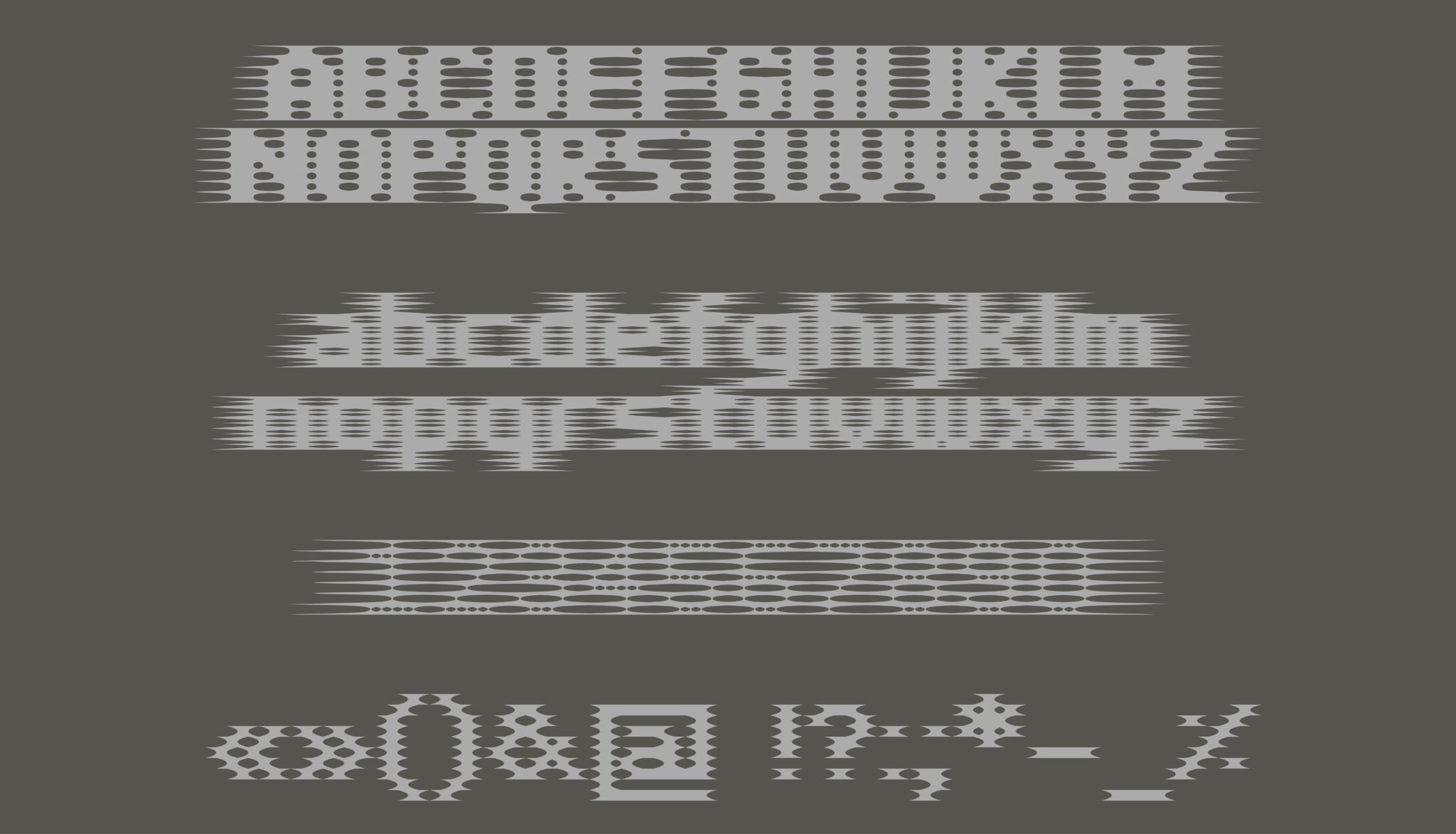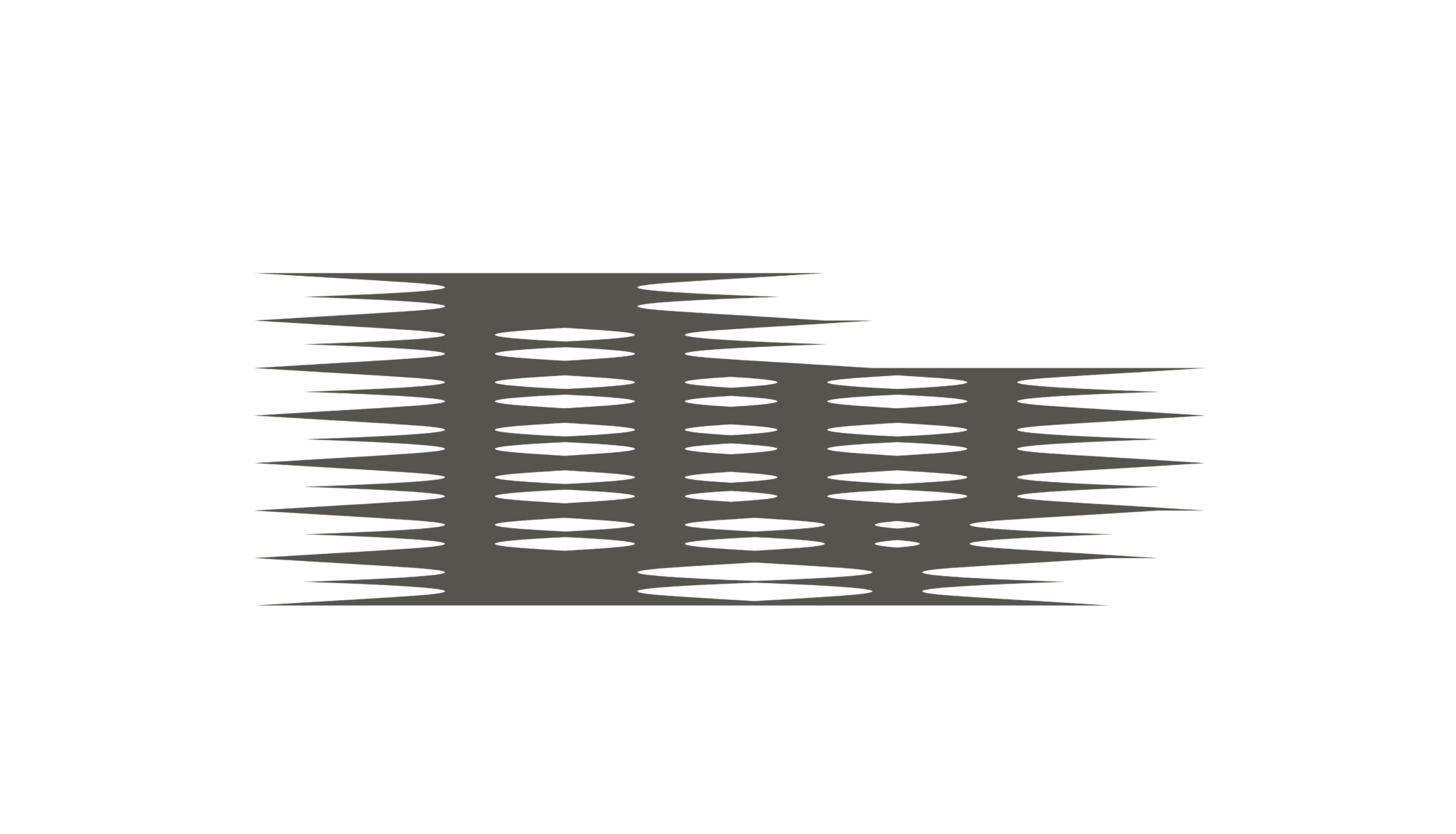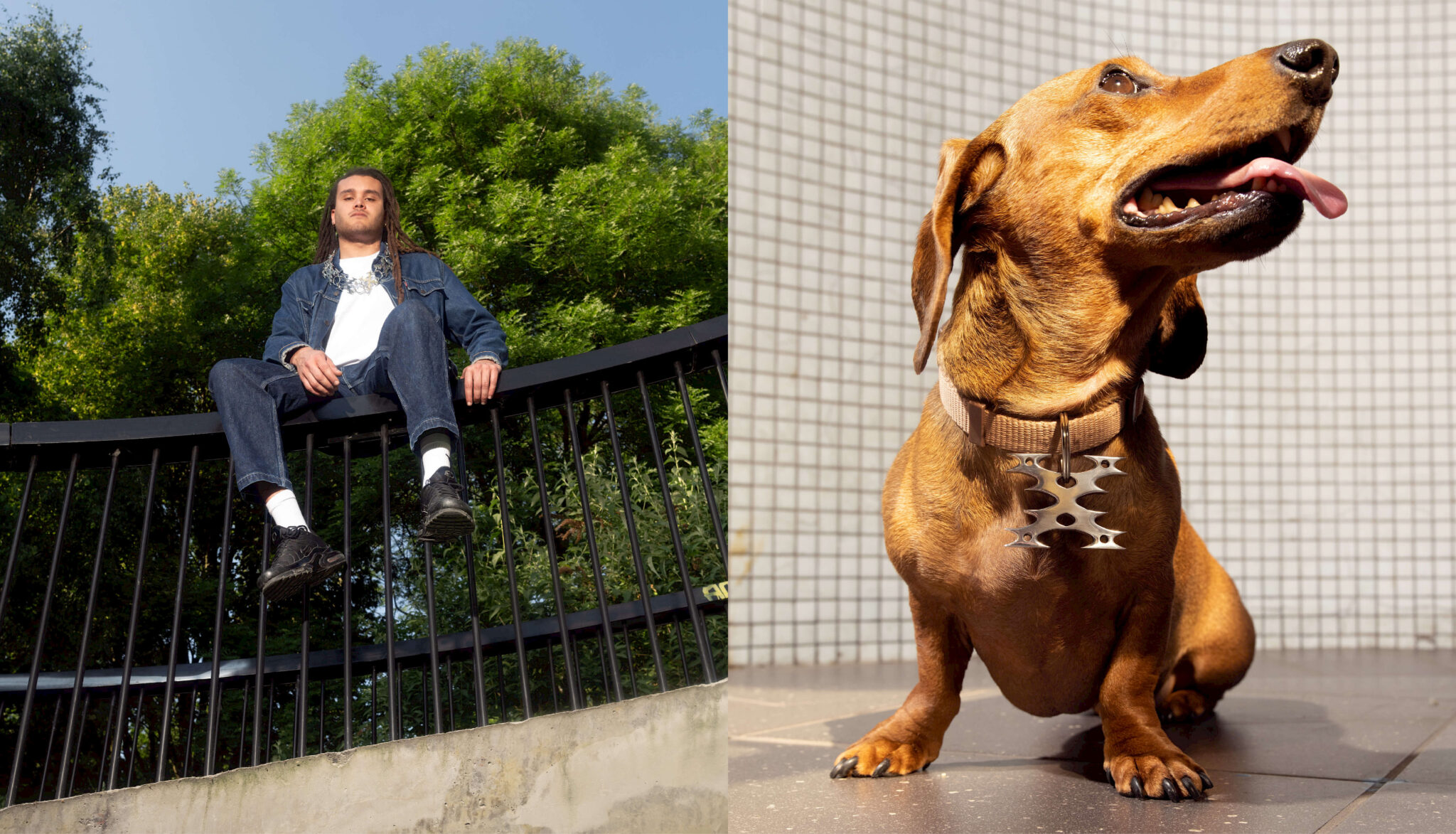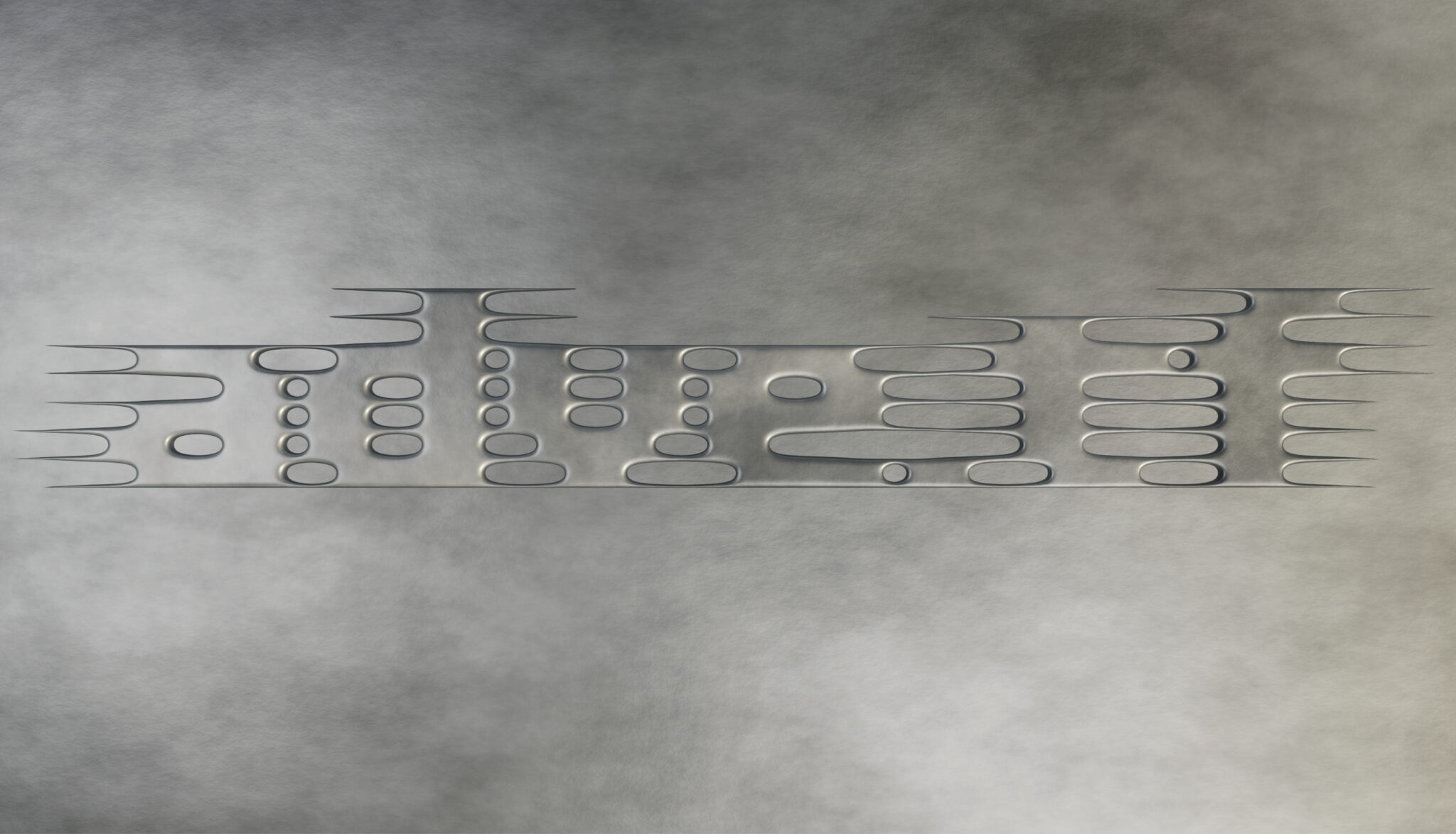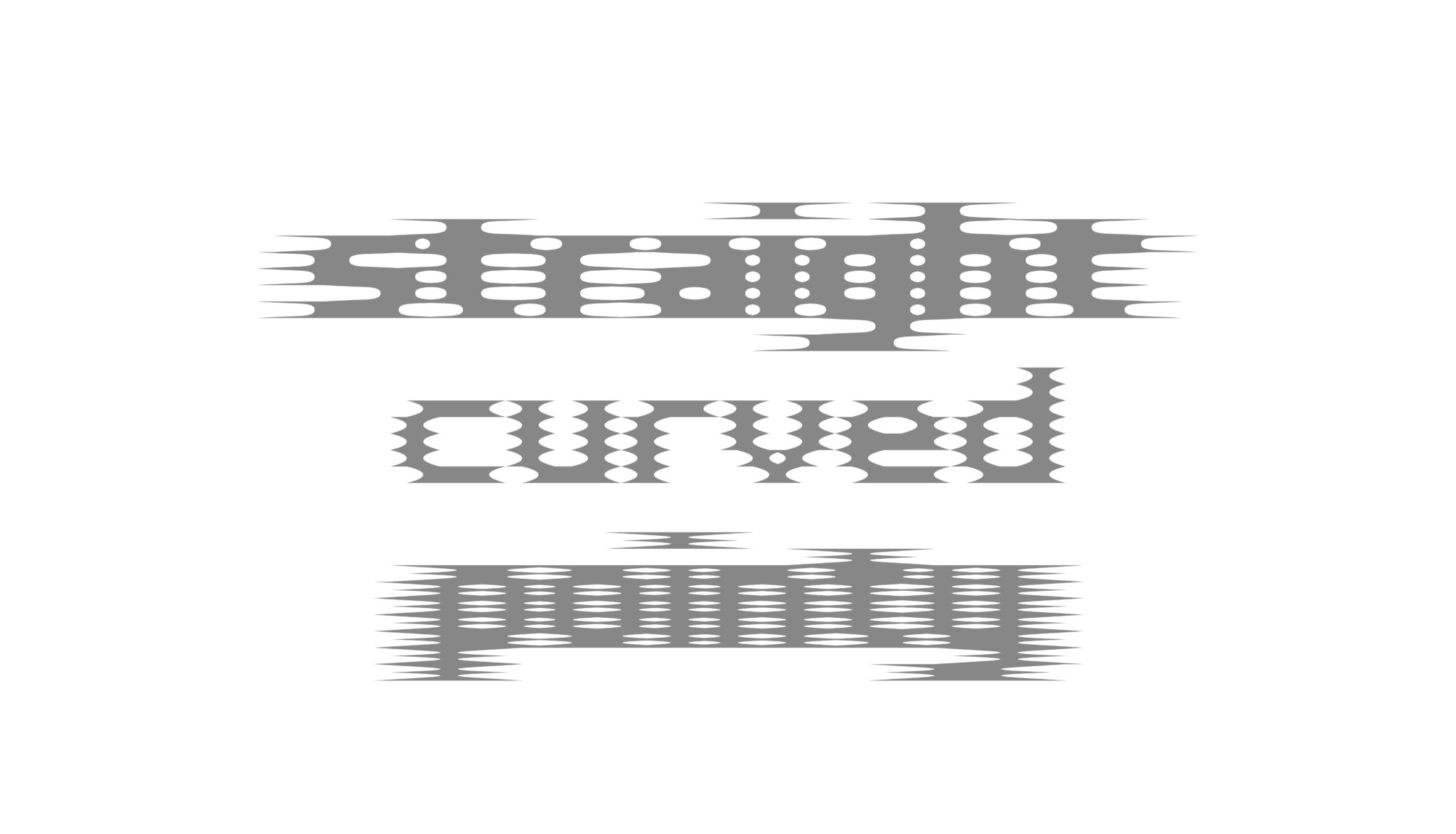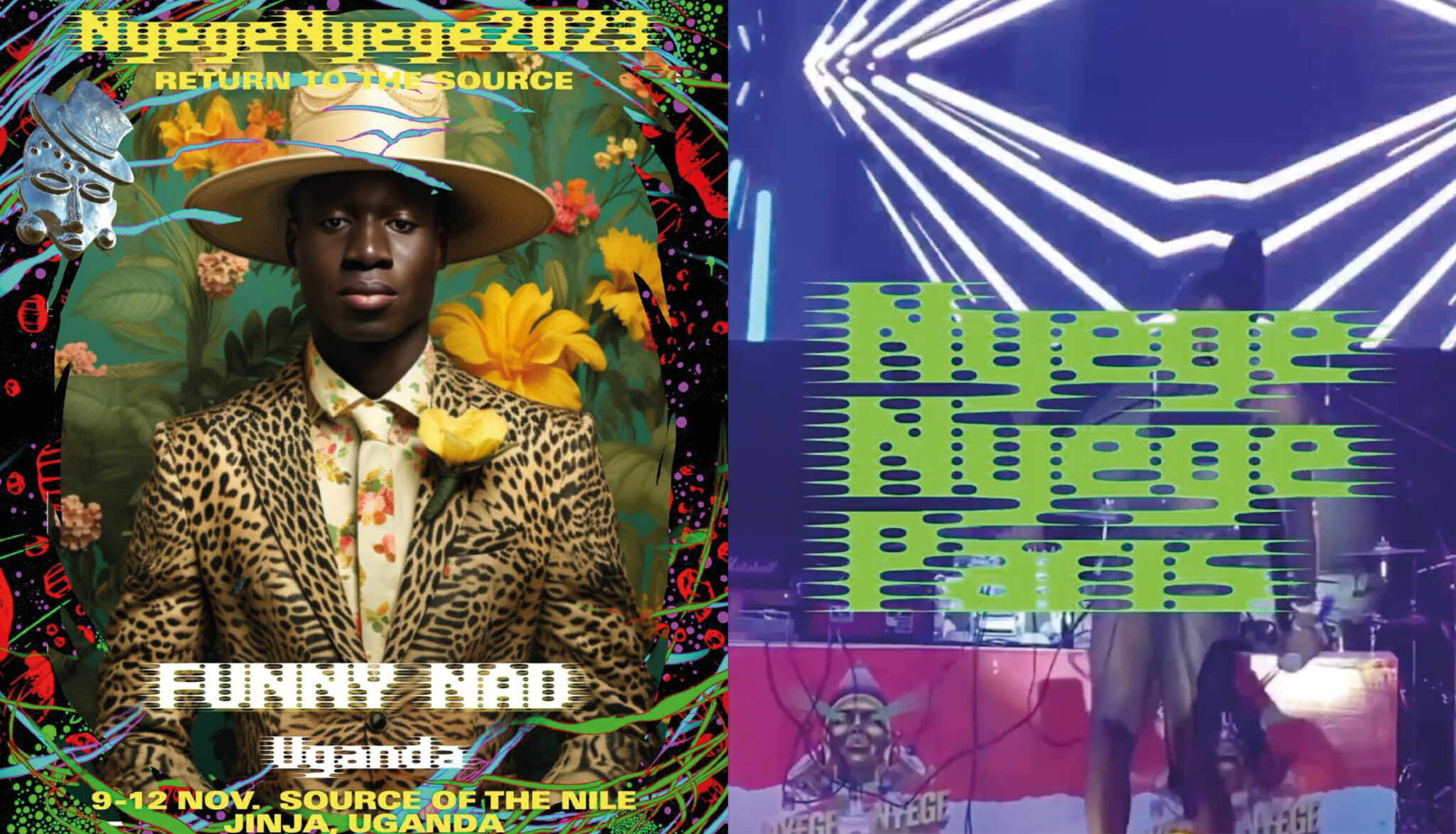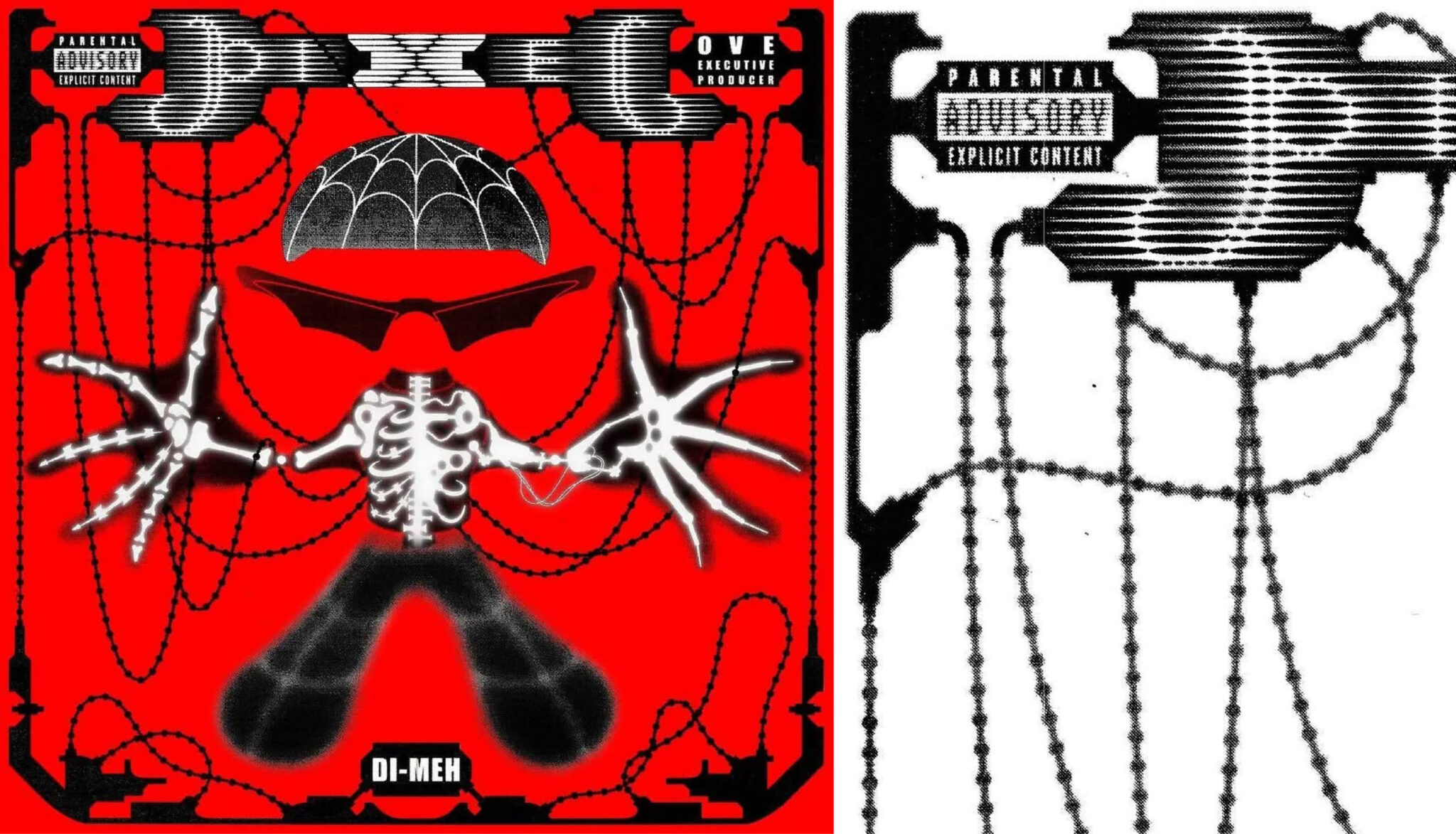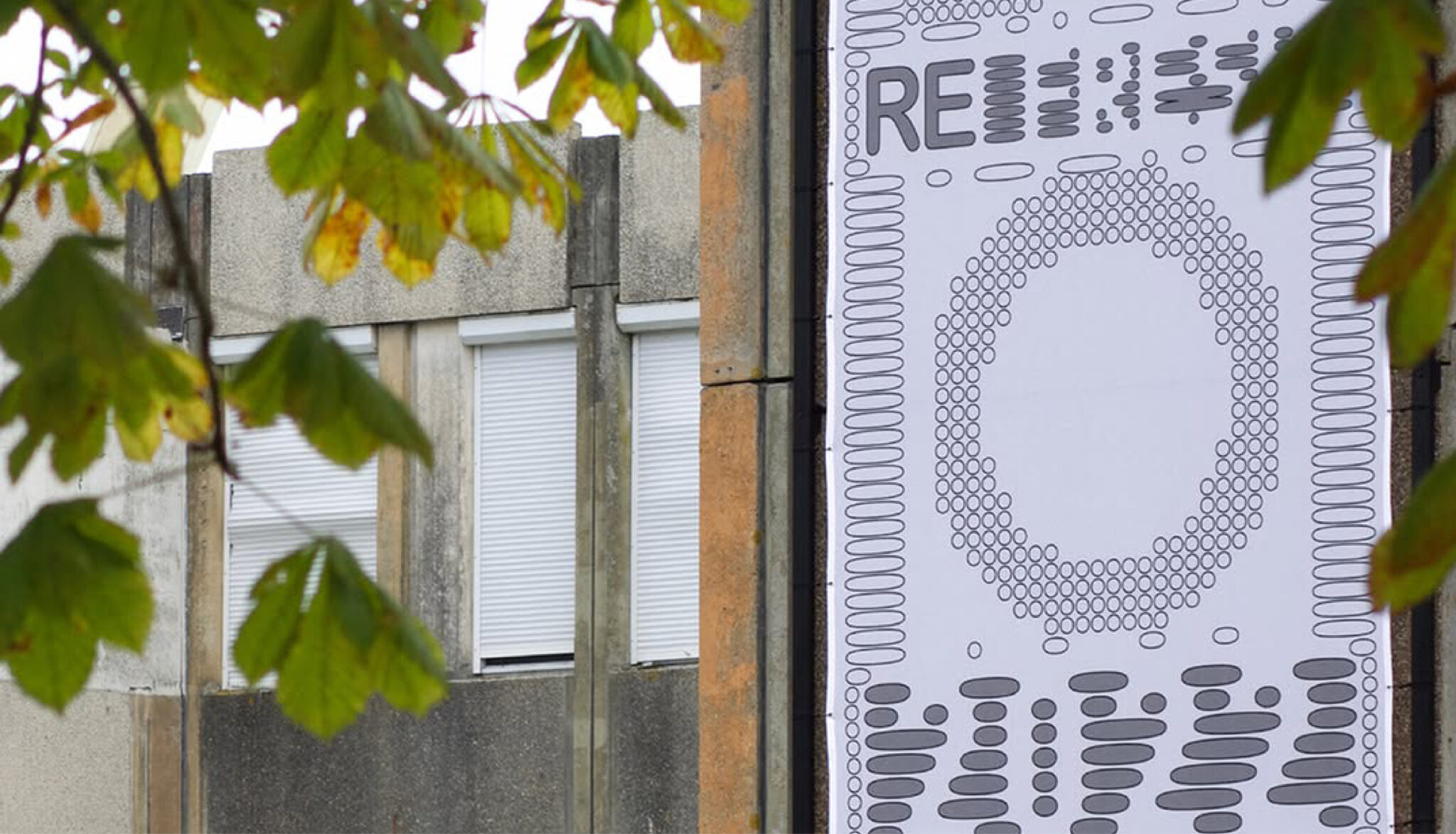
Sharpix
Sharpix is a variable font based on a first drawing made by Loup Lopez in 2019, in the frame of a workshop given by Maximage at the Rietveld academy. The different weights correspond to different sharpness intensities. The very graphic nature of the typeface makes it a perfect display font, taking on different dimensions depending on whether it is used in large or small bodies. The font has been completed in collaboration with Loup Lopez in 2022. It includes a complete Latin set and inclusive characters.